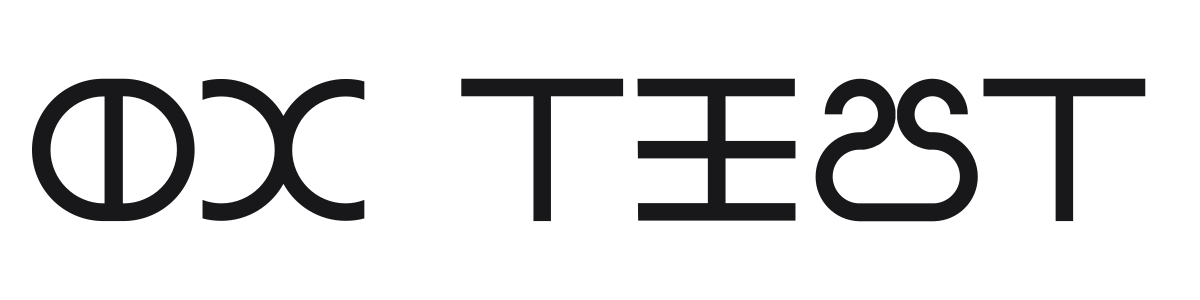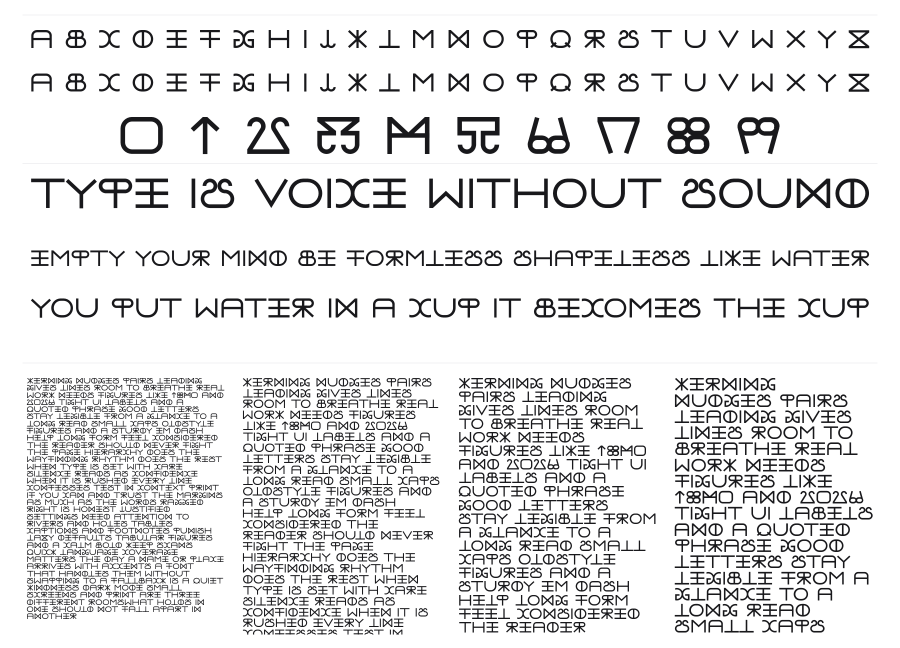
DC Test
by Maria Useche
DC Test is a modular geometric sans built on a strict square grid, with every character constructed from uniform-weight straight strokes and arcs. Several characters use unconventional solutions that prioritize geometric consistency over readability, giving the font a distinctly experimental, techno-industrial edge. Best suited to large-scale display contexts where its structural logic can be appreciated.